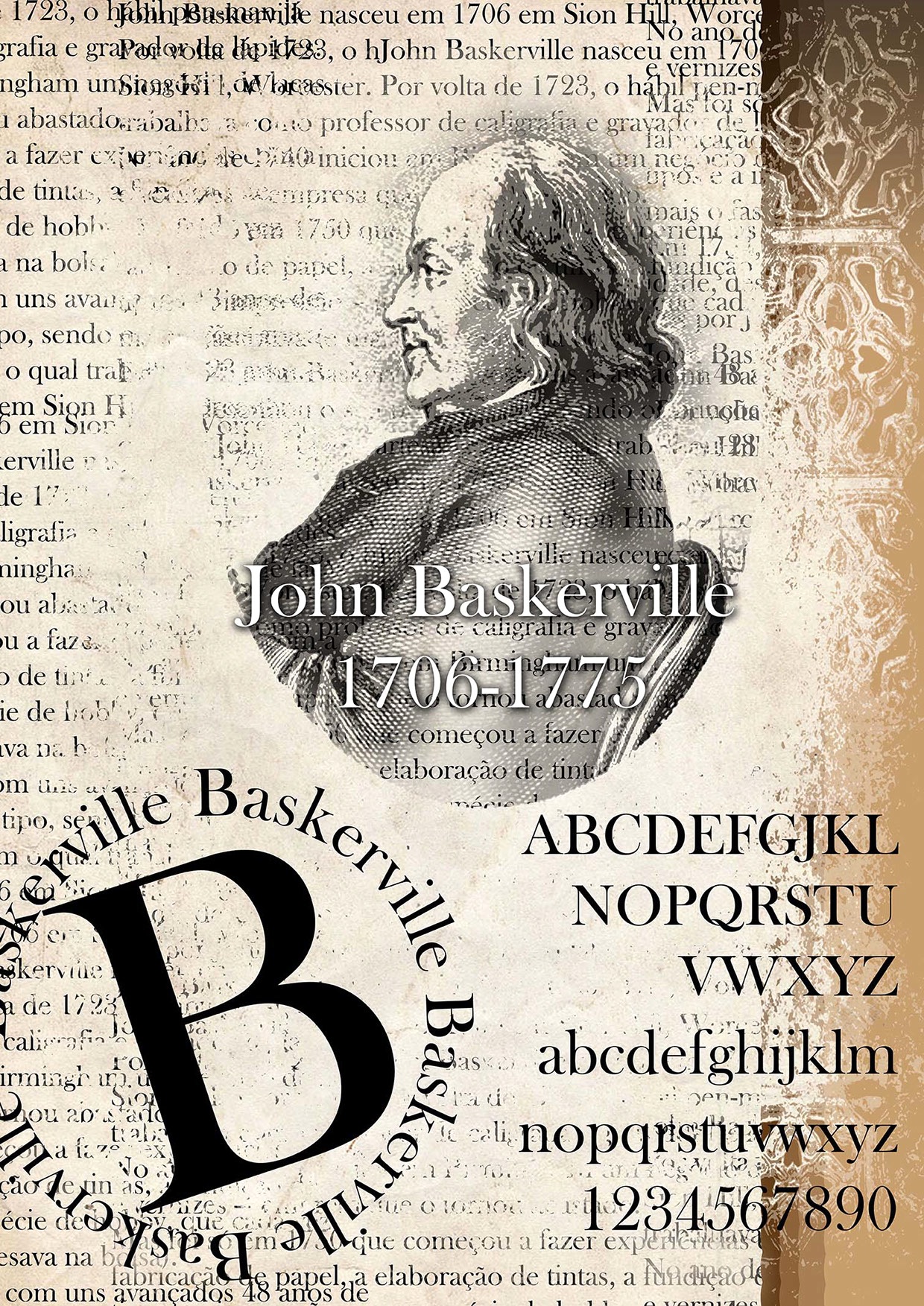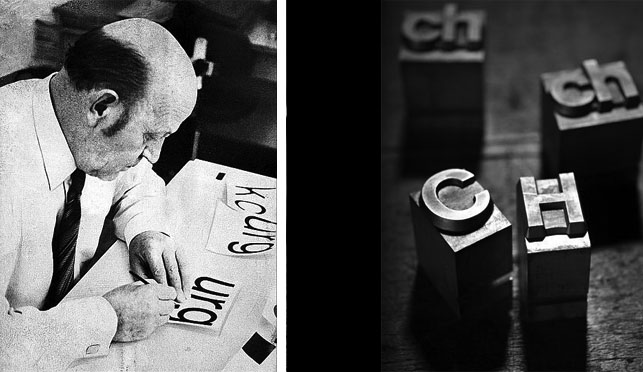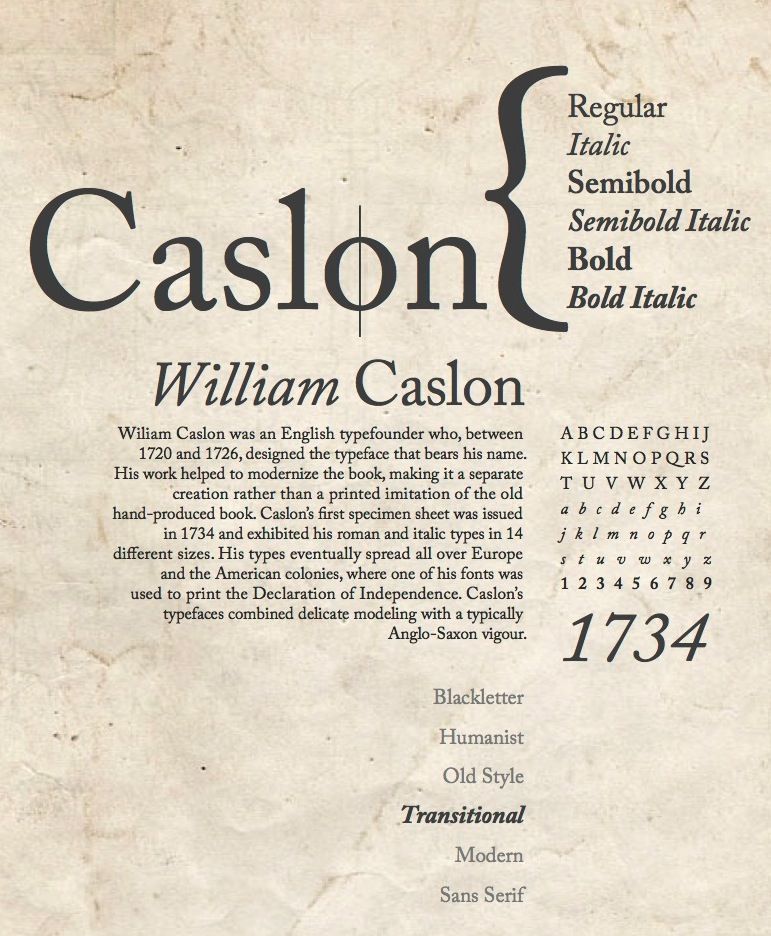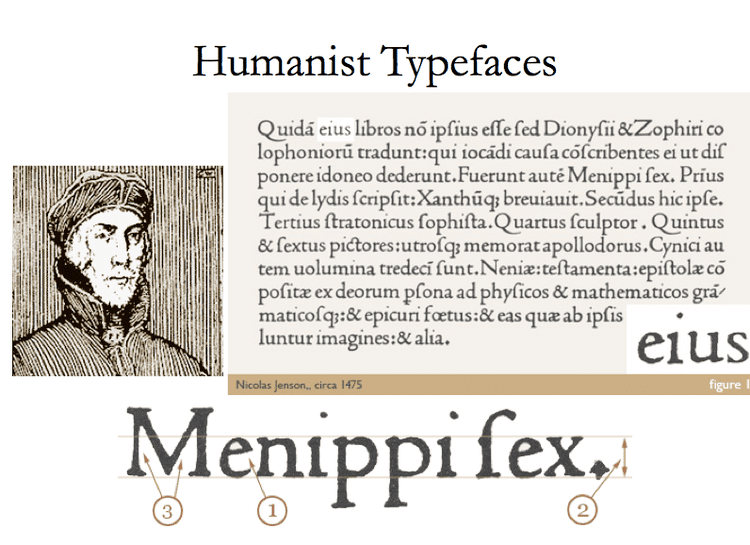
Johannes Gutenberg a goldsmith invented the printing press. This causes the price of books to decrease making literature more accessible. Before the printing press all writing was done my hand meaning they took time and cost money. The typeface used by Guttenberg was also one of the first typefaces called blackletter.
Nicolas Jenson a french printer created Roman type. He was inspired by the text from ancient roman buildings. Roman was more legible than Blackletter. Jenson studied under Guttenburg in 1458.
Aldus Manutius an Italian printer invents italics. Italics were much thinner meaning printers could fit more text onto the page. He also created small inexpensive books that allowed many to access texts.
William Caslon a British type founder created the well know font Caslon. He used this type for a New Testament. The font is referred to 'Old Style' today.
John Baskerville a British printer and type designer created Transitional Type. A type with sharp serifs and lots of contrast between thick and thin lines.
William Caslon IV, great-grandson of William Caslon I. He is credited wit creating the first san serif font. The font was called Egyptian.
Max Miedinger a Swiss designer created Helvetica. It is one of the most loved fonts and marked the return of minimalism. The creation of this font inspired many others.